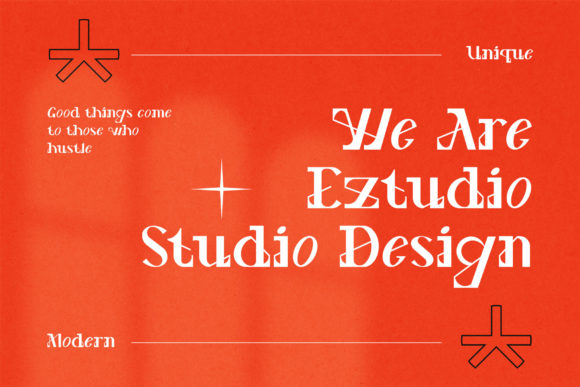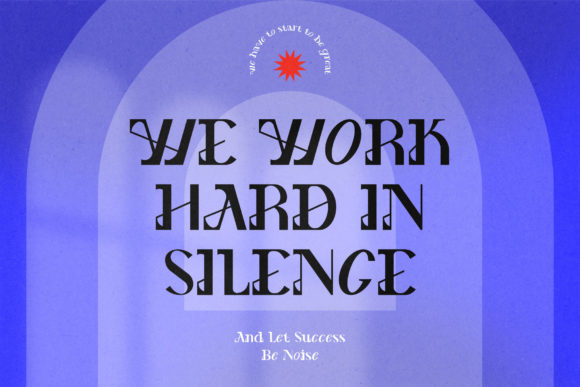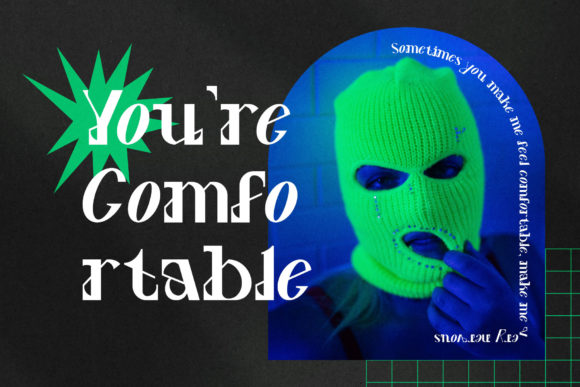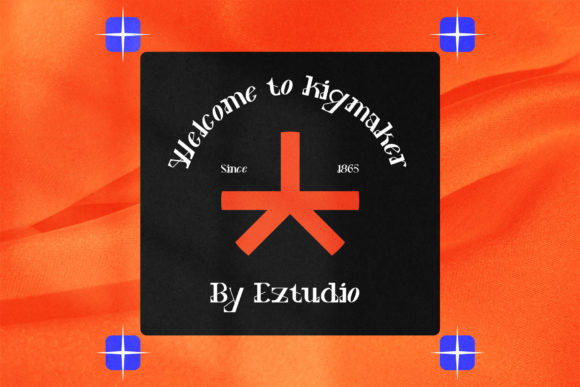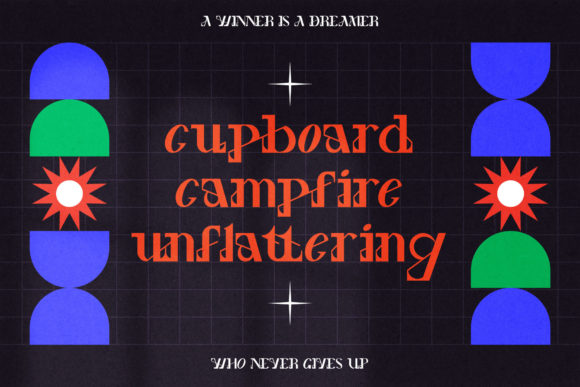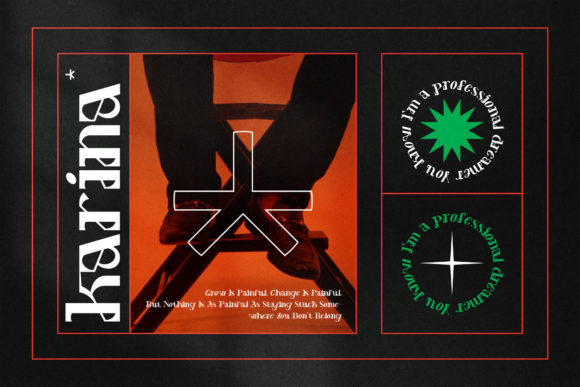
Introducing Granty Font: The Assertive and Bold Display for Creative Projects
In the world of typography, a font can make or break a design. It can elevate a project from ordinary to extraordinary, conveying the perfect tone and personality. For designers and crafters looking to add a distinct touch to their creations, Granty Font is an excellent choice. This assertive and bold display font is imposing, featuring uniquely shaped letters that demand attention.
The Characteristics of Granty Font
Granty Font is a display font that boasts a strong and confident presence. Its bold and assertive nature makes it perfect for projects that require a statement piece. The font’s unique lettering style is both modern and edgy, giving it a distinctive edge over other fonts in its category. The letters are carefully crafted to create a sense of depth and dimensionality, adding to the font’s overall visual impact.
What Makes Granty Font Stand Out
So, what sets Granty Font apart from other display fonts? Here are a few key features that make it a standout:
- Uniquely Shaped Letters: Each letter in the Granty Font is carefully designed to be distinct and recognizable. The font’s unique lettering style ensures that your text will stand out from the crowd.
- Bold and Assertive: Granty Font is not for the faint of heart. Its bold and assertive nature makes it perfect for projects that require a strong statement.
- High Versatility: Despite its bold nature, Granty Font is surprisingly versatile. It can be used in a wide range of projects, from posters and flyers to logos and branding materials.
Granty Font’s unique characteristics make it an excellent choice for a variety of creative projects. Here are some ideas to get you started:
- Posters and Flyers: Use Granty Font to create eye-catching posters and flyers that demand attention.
- Logos and Branding: Granty Font’s bold and assertive nature makes it perfect for logos and branding materials that require a strong statement.
- Social Media Graphics: Add a touch of personality to your social media graphics with Granty Font’s unique lettering style.
- Packaging Design: Use Granty Font to create bold and eye-catching packaging designs that stand out on store shelves.
Tips for Using Granty Font Effectively
To get the most out of Granty Font, here are a few tips to keep in mind:
- Use it Sparingly: Due to its bold nature, it’s best to use Granty Font sparingly. Use it for headings or titles, and pair it with a simpler font for body text.
- Experiment with Colors: Granty Font looks great in a variety of colors. Experiment with different colors to find the perfect combination for your project.
- Pair it with Other Fonts: Don’t be afraid to pair Granty Font with other fonts to create visual interest. Try pairing it with a clean sans-serif font for a bold and modern look.
In conclusion, Granty Font is an assertive and bold display font that is sure to make a statement in any design project. Its uniquely shaped letters and bold nature make it perfect for a wide range of creative projects, from posters and flyers to logos and branding materials. With its high versatility and ease of use, Granty Font is an excellent choice for designers and crafters looking to add a distinct touch to their creations.